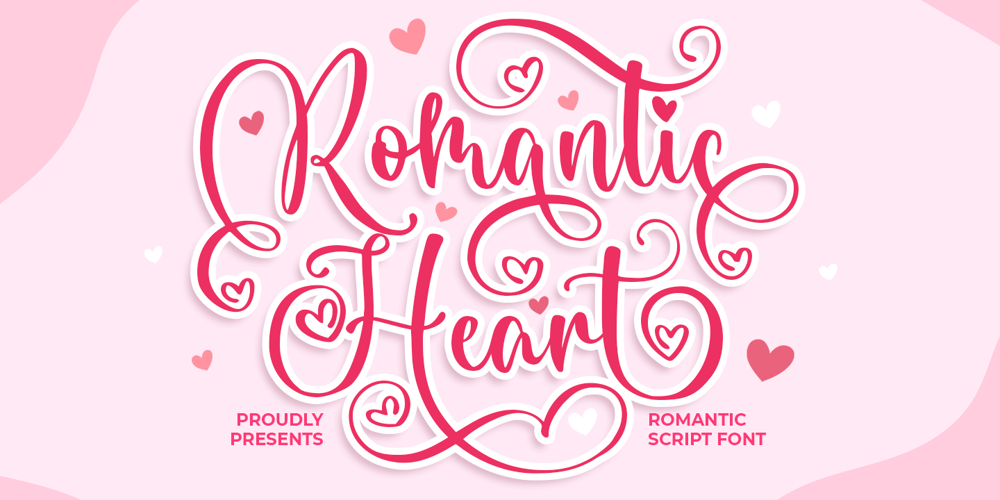
Romantic Heart Font Family was designed by Bangkit Tri Setiadi and published by Blankids. Romantic Heart contains 1 styles and family package options. Introducing of our new product the name is Romantic Heart Script Font. Romantic Heart inspired by bouncy script style this font is a fun theme very good for display, tshirt design, craft, quote sign, logotype and etcFEATURES : Uppercase Lowercase Number Punctuation Multilingual PUA Encode Opentype